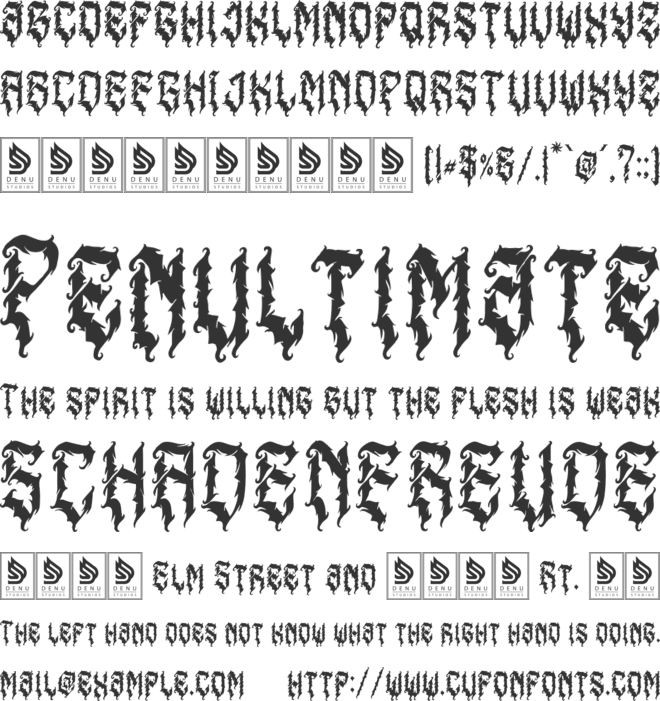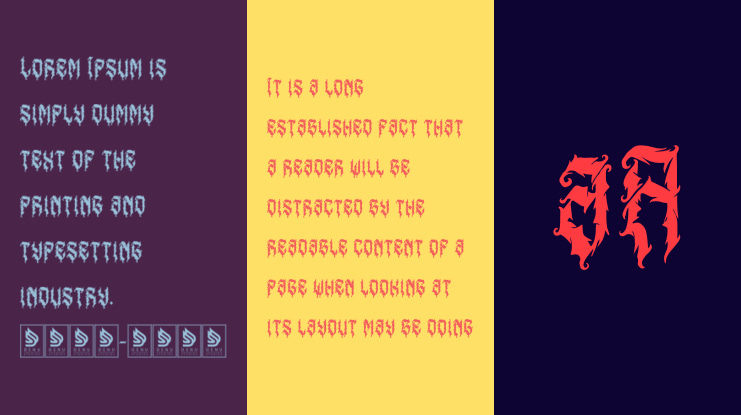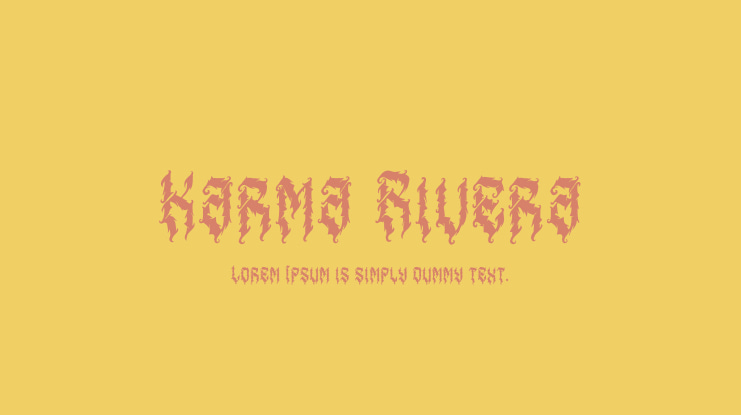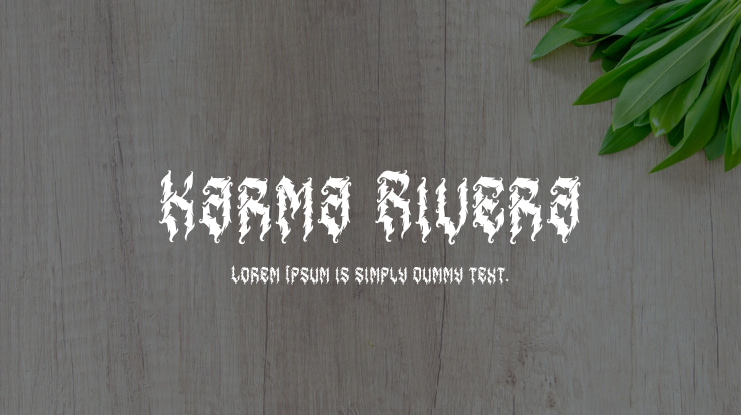
Karma Rivera Font
Karma Rivera | Blackletter Typeface is suitable for various projects such as logos, branding projects, homeware designs, product packaging, mugs, quotes, posters, shopping bags, t-shirts, book covers, name cards, invitation cards, greeting cards, labels, photography, watermarks, special events, and all your other lovely projects that require a Blackletter Font touch.